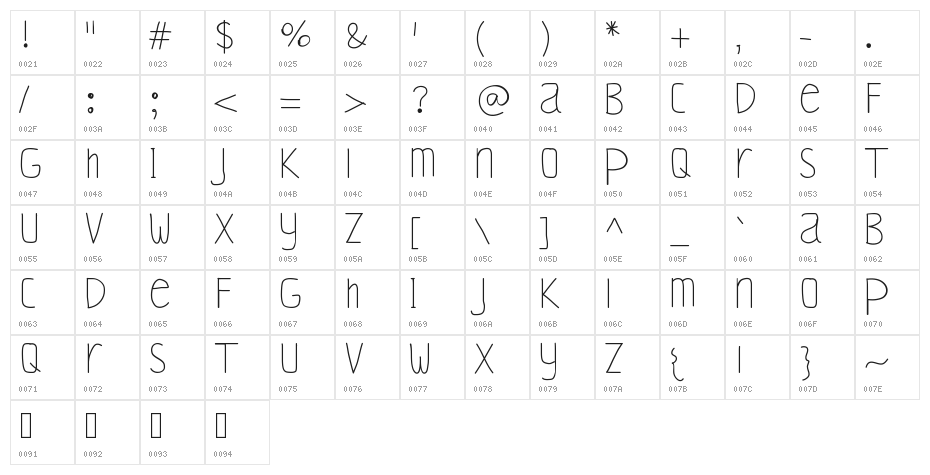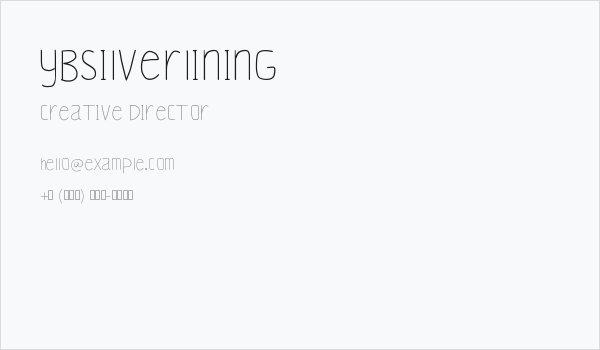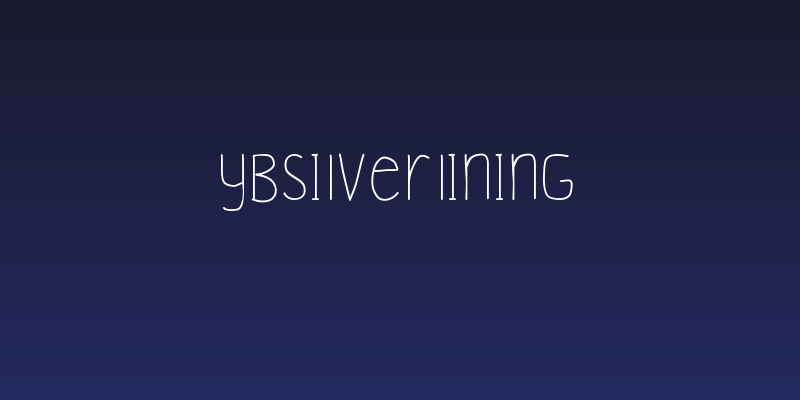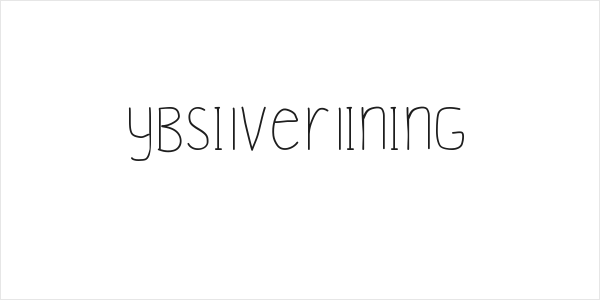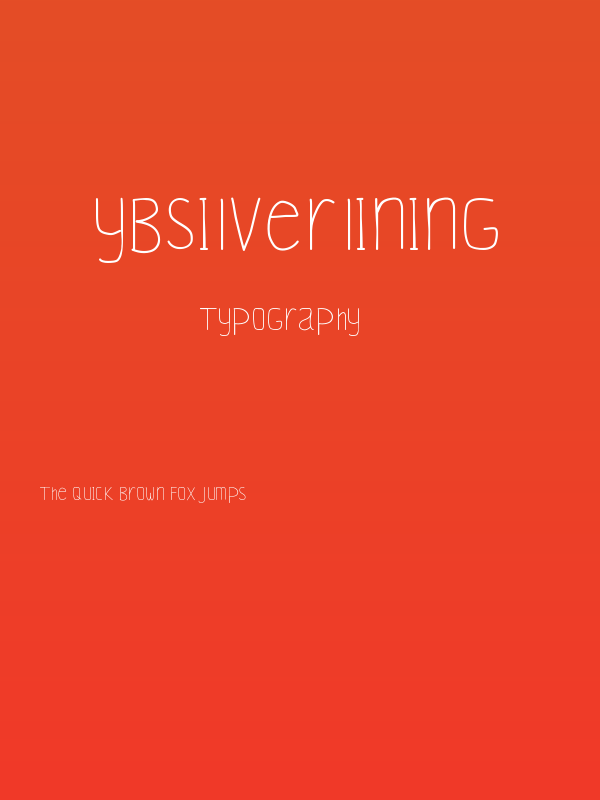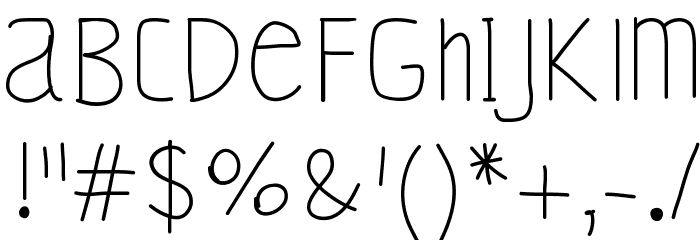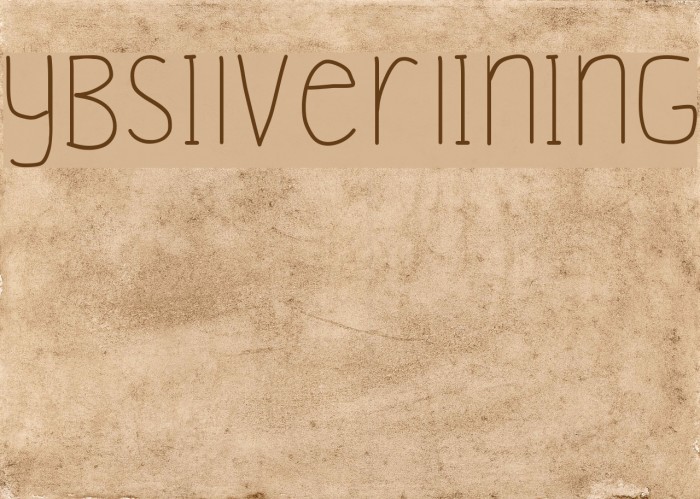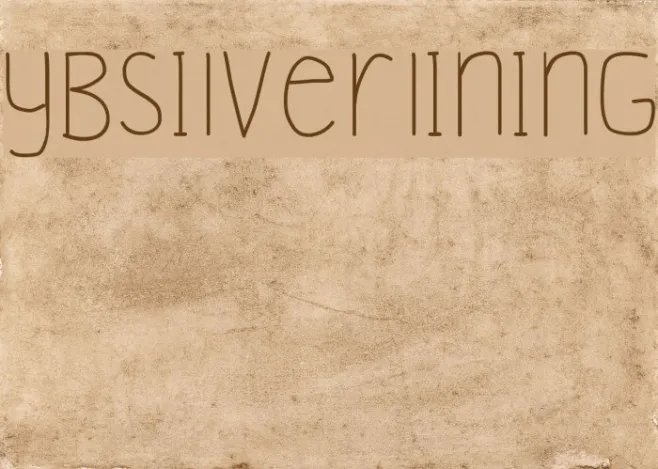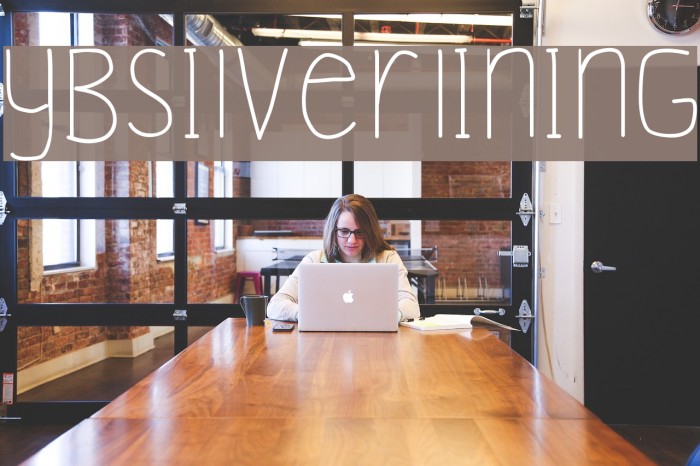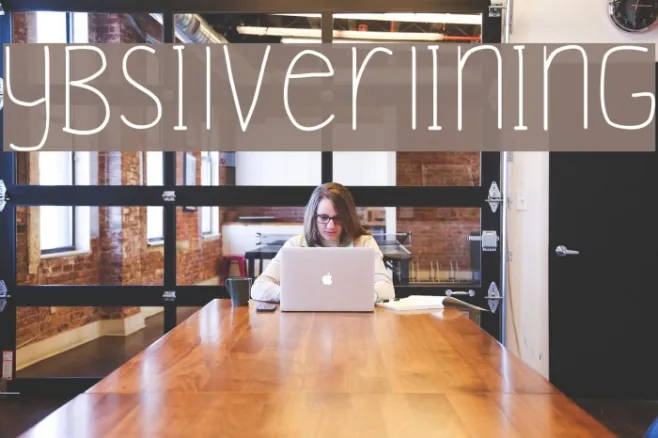
YBSilverLining Font
YBSilverLining Description
This font features a unique and playful design, characterized by its thin, elongated strokes and slightly curved lines. The characters have a whimsical, hand-drawn quality, with a consistent stroke width throughout. The uppercase letters are tall and narrow, while the lowercase letters maintain a similar height, creating a cohesive look. The numerals and special characters follow the same style, ensuring uniformity across all glyphs. This font's distinct style makes it suitable for creative and artistic projects, offering a modern yet approachable aesthetic.
| Overall Style | Playful, Modern |
| Proposed Projects | Ideal for children's books, greeting cards, playful branding, and creative posters. |